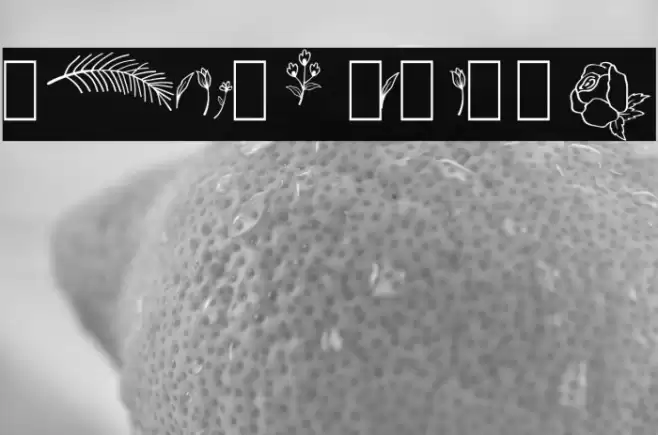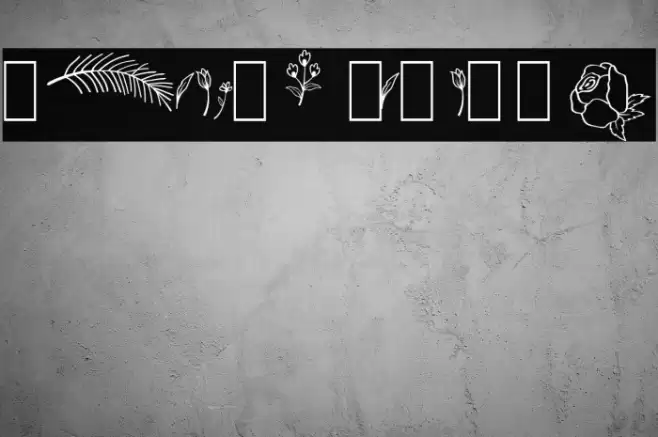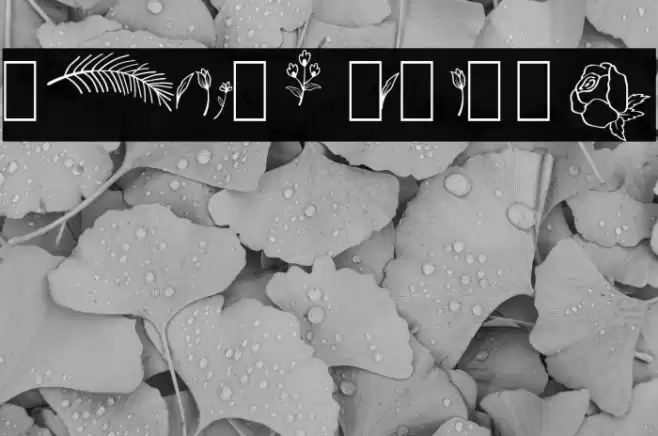
Balmond Element Font
Balmond Element Description
This set features hand-drawn botanical and floral illustrations with clean, thin lines and a delicate, organic feel. The elements include leaves, branches, flowers, and buds, all rendered in a consistent, minimalist style suitable for decorative purposes.
Delicate hand-drawn botanical and floral illustration set from Uncategorized fonts.
- Font: Balmond Element
- Proposed Projects: Wedding invitations, greeting cards, branding, packaging, scrapbooking, social media graphics.
- Weight: Light
- Overall Style: Decorative, Hand-drawn, Minimalist
- Use Case: Decorative elements, Borders, Accents, Illustrations